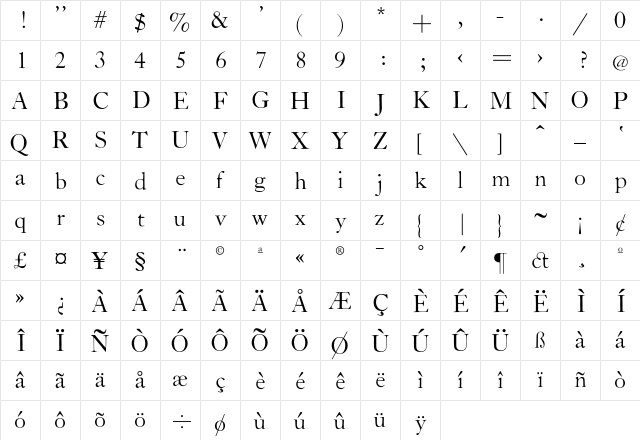
CaslonZL Regular
Design Context for CaslonZL Typeface
CaslonZL is a composed and adaptable typeface that performs quietly and consistently across a wide range of design contexts.